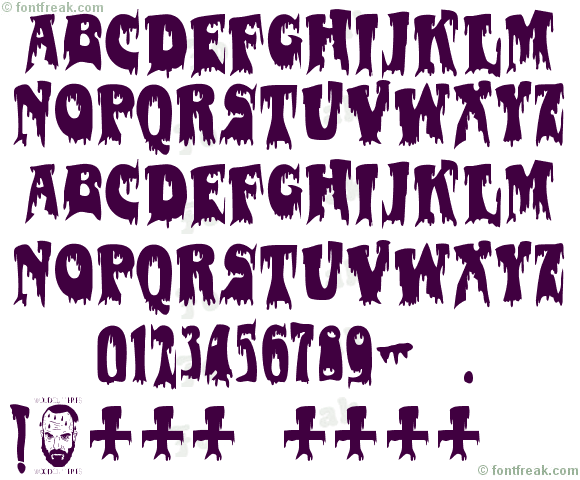
transilvania
About transilvania
The Transilvania font by woodcutter Manero is a captivating display typeface that embodies an intriguing blend of whimsy and darkness, making it an excellent choice for projects that require a touch of the fantastical. This font features bold, exaggerated letterforms with irregular, dripping edges that evoke a sense of mystery and surprise. The stroke weight is consistent, yet the uneven spacing adds to its unique character, making each letter appear as though it is alive with personality. The font's decorative elements enhance its thematic appeal, making it visually striking and memorable.
Transilvania is particularly well-suited for a variety of creative applications. It shines in contexts such as Halloween-themed events, where it can be used for party invitations or promotional materials. Its distinctive style makes it a great fit for movie posters, especially in horror or fantasy genres, giving a sense of intrigue and excitement. Additionally, this font can elevate the design of restaurant menus, particularly in establishments that specialize in gothic or eclectic cuisine. Graphic designers and content creators will find it an invaluable asset for branding projects that aim to stand out and capture attention.
The target audience for Transilvania includes graphic designers, small business owners, and content creators who seek to infuse their work with a unique flair. Whether for print or digital media, this font offers versatility and visual impact. The Transilvania font free download provides an accessible opportunity for creatives to explore its potential without cost. In conclusion, Transilvania stands out not only for its eye-catching design but also for its ability to evoke emotion and storytelling through typography, making it a must-have for anyone looking to make a bold statement in their designs.